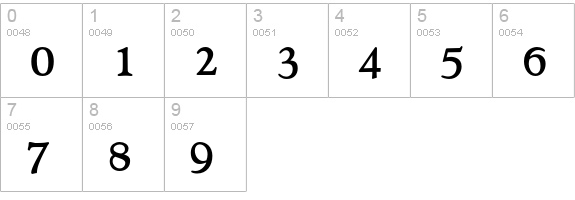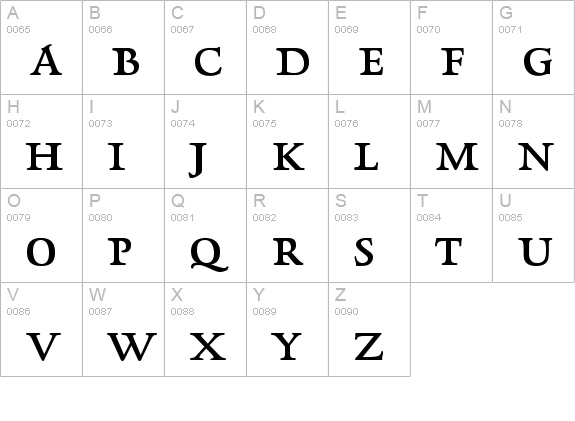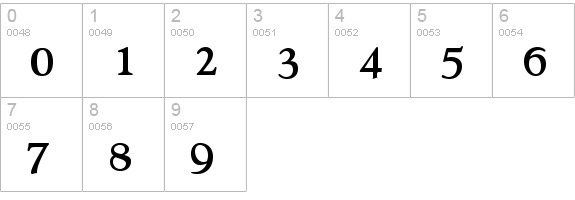
AT Hadriano Std Bold Font Details
AT Hadriano Std Bold is a strong, high-contrast variant in the AT typeface family \xE2\x80\x94 well suited to headlines, attention-grabbing titles, and strong calls-to-action.
AT Hadriano Std Bold is a striking and bold font that exudes confidence and modernity. Its clean lines and strong presence make it ideal for headlines, titles, and other display purposes. With its commanding appearance, this font demands attention and adds a touch of sophistication to any design project. The best part is that AT Hadriano Std Bold is available for free download at FontsMarket.com. This means that you can easily access and use this impressive font in your creative endeavors without any cost. Don't miss out on the opportunity to enhance your designs with the impactful AT Hadriano Std Bold font – download it today and elevate your projects to new heights!